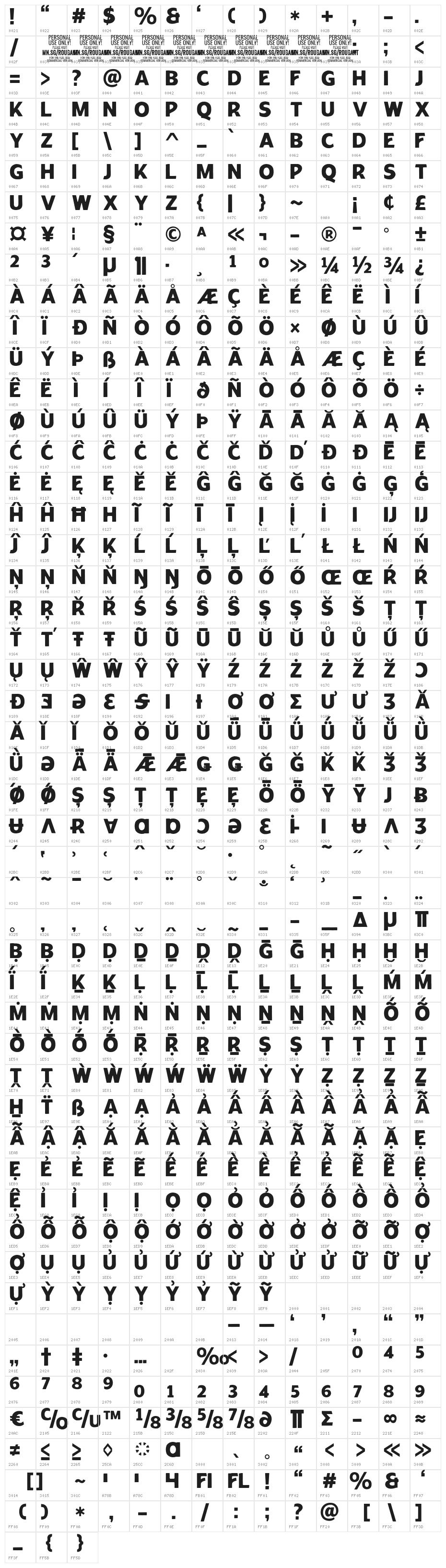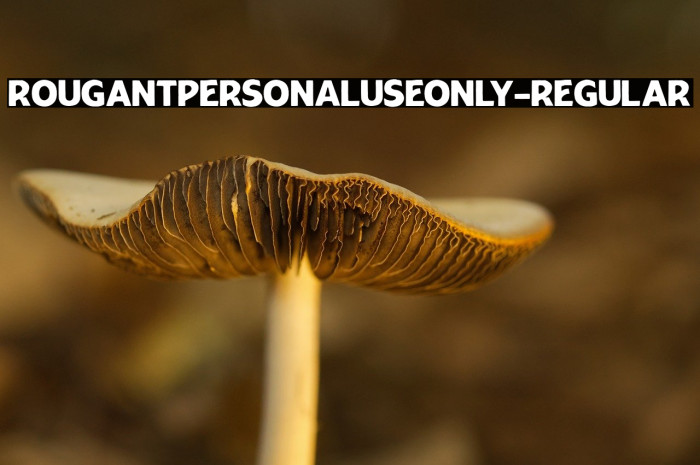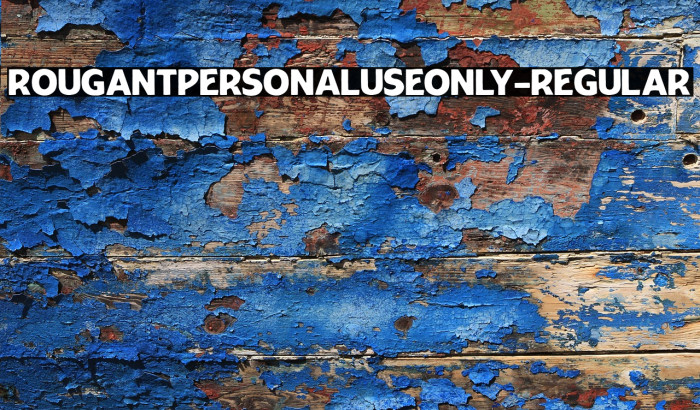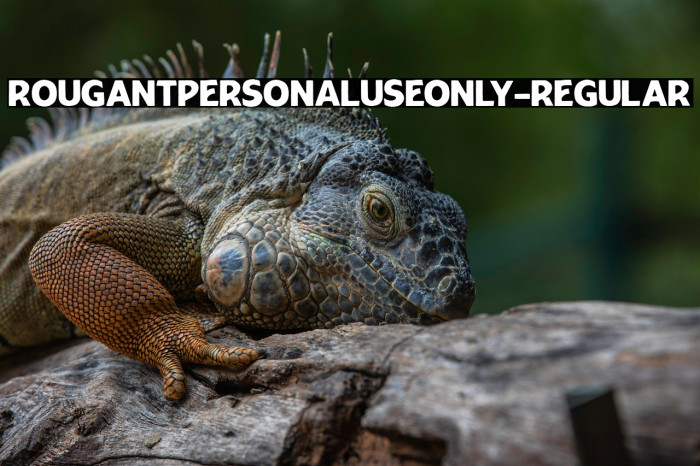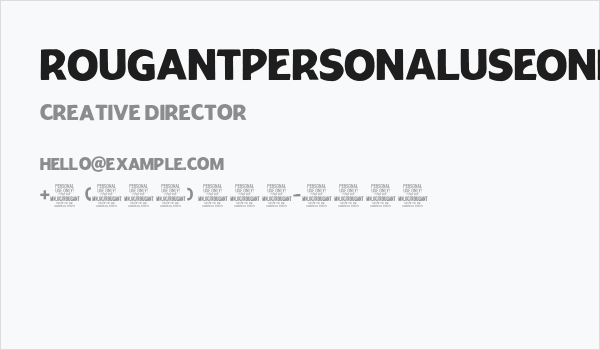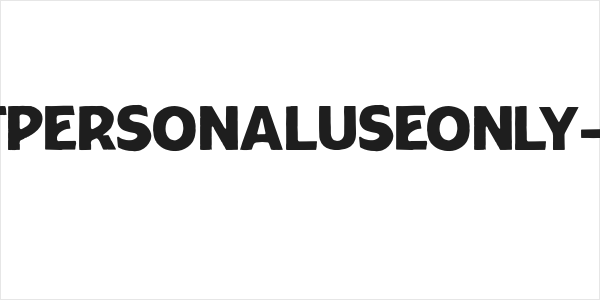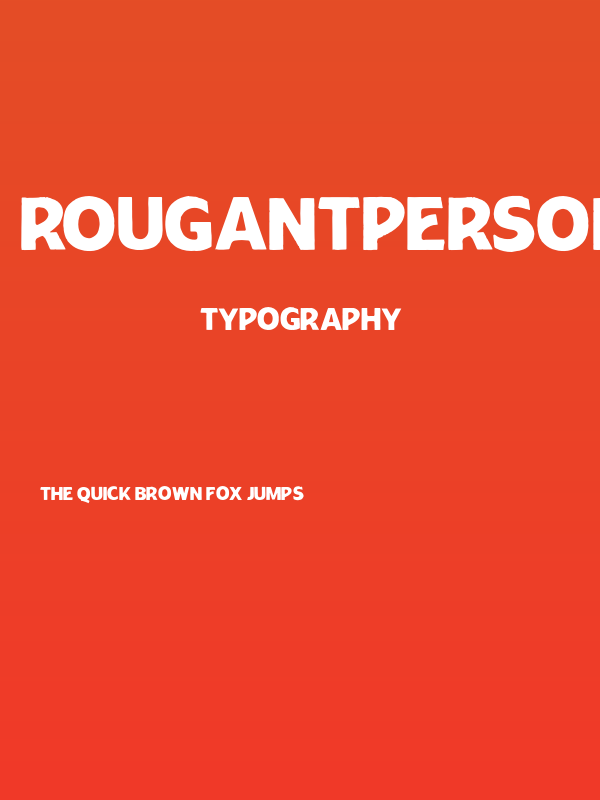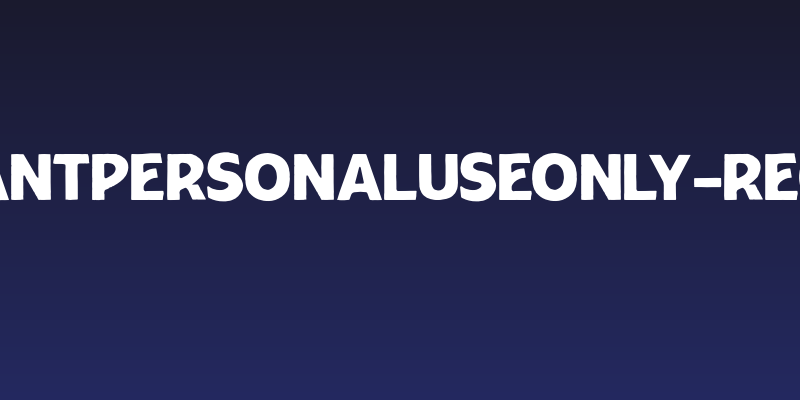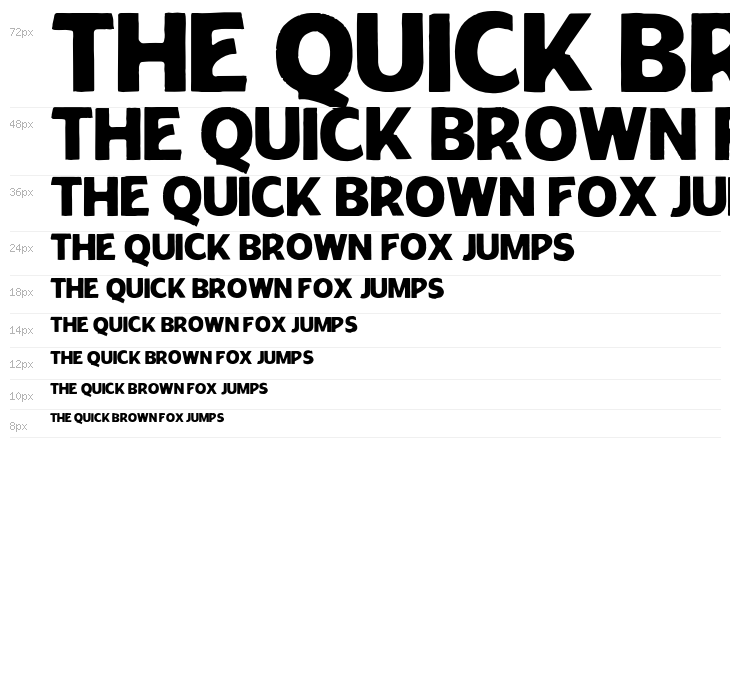
RougantPERSONALUSEONLY-Regular Font
RougantPERSONALUSEONLY-Regular Description
This font features bold, blocky letters with a strong presence, ideal for making a statement. The characters are uniformly thick, giving them a robust and sturdy appearance. The uppercase letters are particularly striking, with a slightly condensed form that enhances their impact. The lowercase letters maintain the same boldness, ensuring consistency across text. The numerals and special characters are equally bold, matching the overall aesthetic. This font's design is modern and eye-catching, suitable for projects that require a strong visual impact.